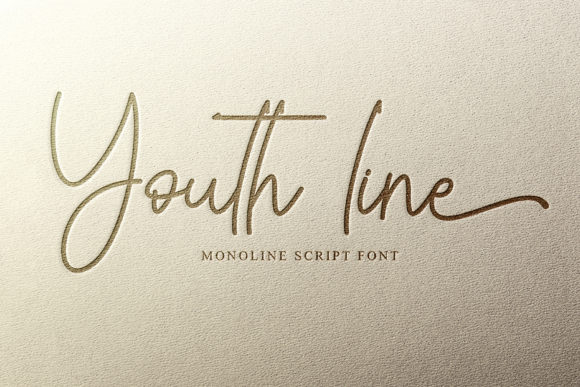
Journey into the realm of elegance and charm with Youth Line Font, a script font family that embodies the essence of romance and allure.
Step into a world where words dance with grace and beauty, where every letter tells a tale of love and joy. Youth Line Font is a symphony of flowing lines, delicate curves, and graceful swashes, designed to evoke emotions and create lasting impressions.
Indulge in the whimsical charm of Youth Line Font, a creation of Sakha Design, where each character is meticulously crafted to convey a sense of warmth and intimacy. Let your creativity soar as you explore the boundless possibilities of this font, perfect for adding a touch of romance to wedding invitations, greeting cards, and any design that craves a personal touch.
With Youth Line Font, you hold the key to unlocking a world of elegance and sophistication. Its PUA-encoded nature makes accessing glyphs and swashes a breeze, empowering you to weave intricate designs and express your artistic vision with ease.
Embrace the magic of Youth Line Font and let your designs bloom with beauty and grace. Its versatility knows no bounds, making it an ideal choice for branding, logos, social media graphics, and any project yearning for a touch of sophistication and charm.